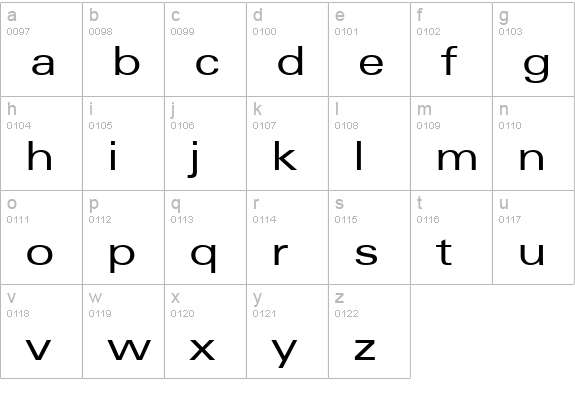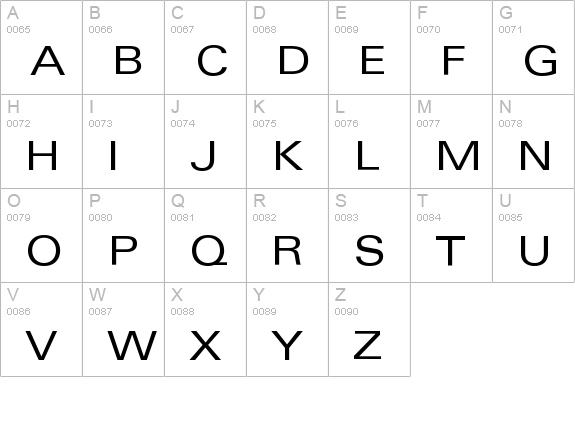
Nova Expanded SSi Expanded Font Details
Nova Expanded SSi Expanded is a distinctive, extended-width variant in the Nova typeface family \xE2\x80\x94 well suited to design and typography projects.
Nova Expanded SSi Expanded font is a modern and sleek typeface that is perfect for creating eye-catching designs. With its bold and futuristic appearance, this font is sure to make a statement in any project. The extended version of Nova Expanded SSi offers even more versatility and impact, making it ideal for headlines, posters, and other display purposes. Best of all, Nova Expanded SSi Expanded font is available for free download at FontsMarket.com. This means that you can easily access this high-quality font without any cost, making it a valuable addition to your font collection. Don't miss out on the opportunity to enhance your designs with the striking Nova Expanded SSi Expanded font - download it for free today!